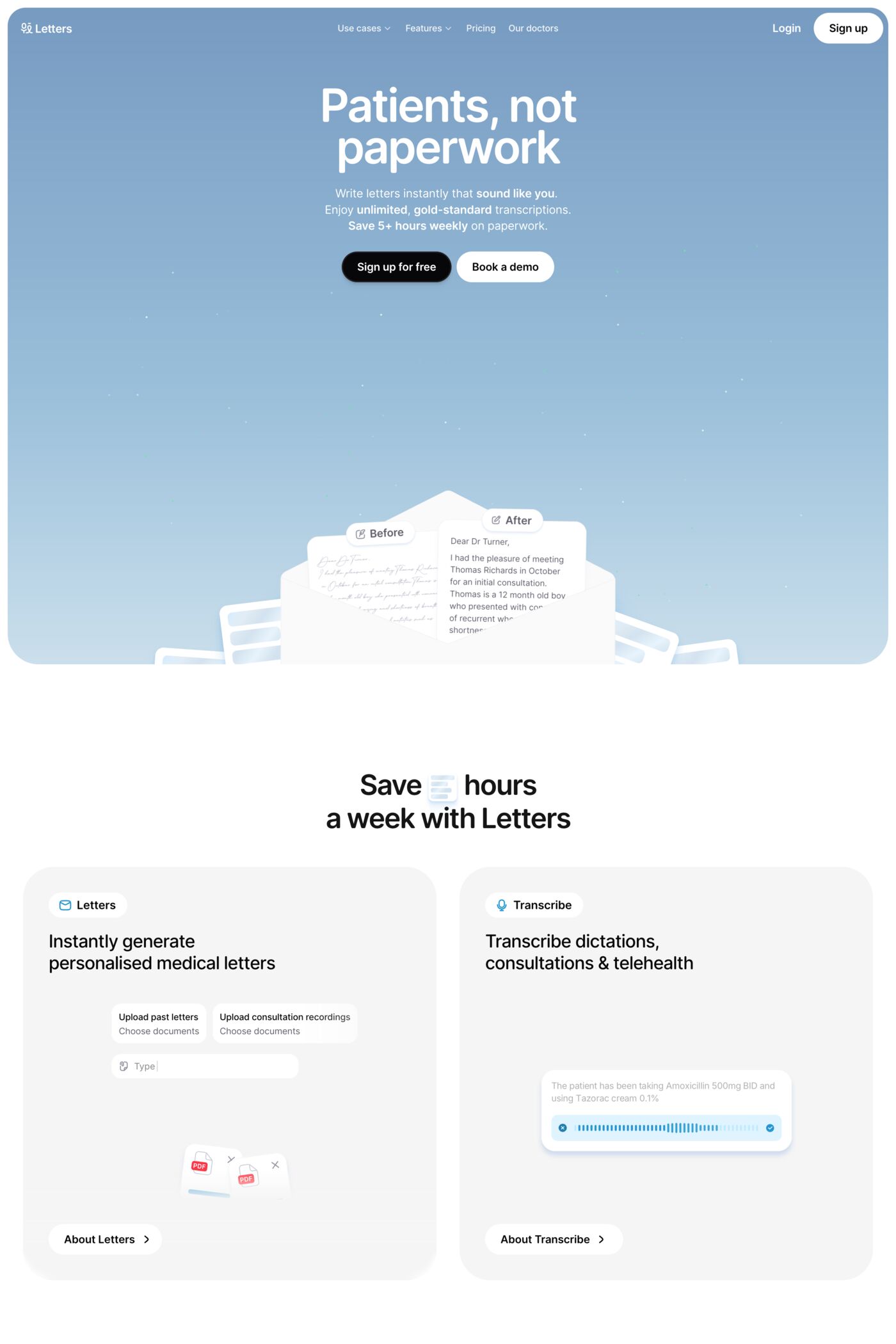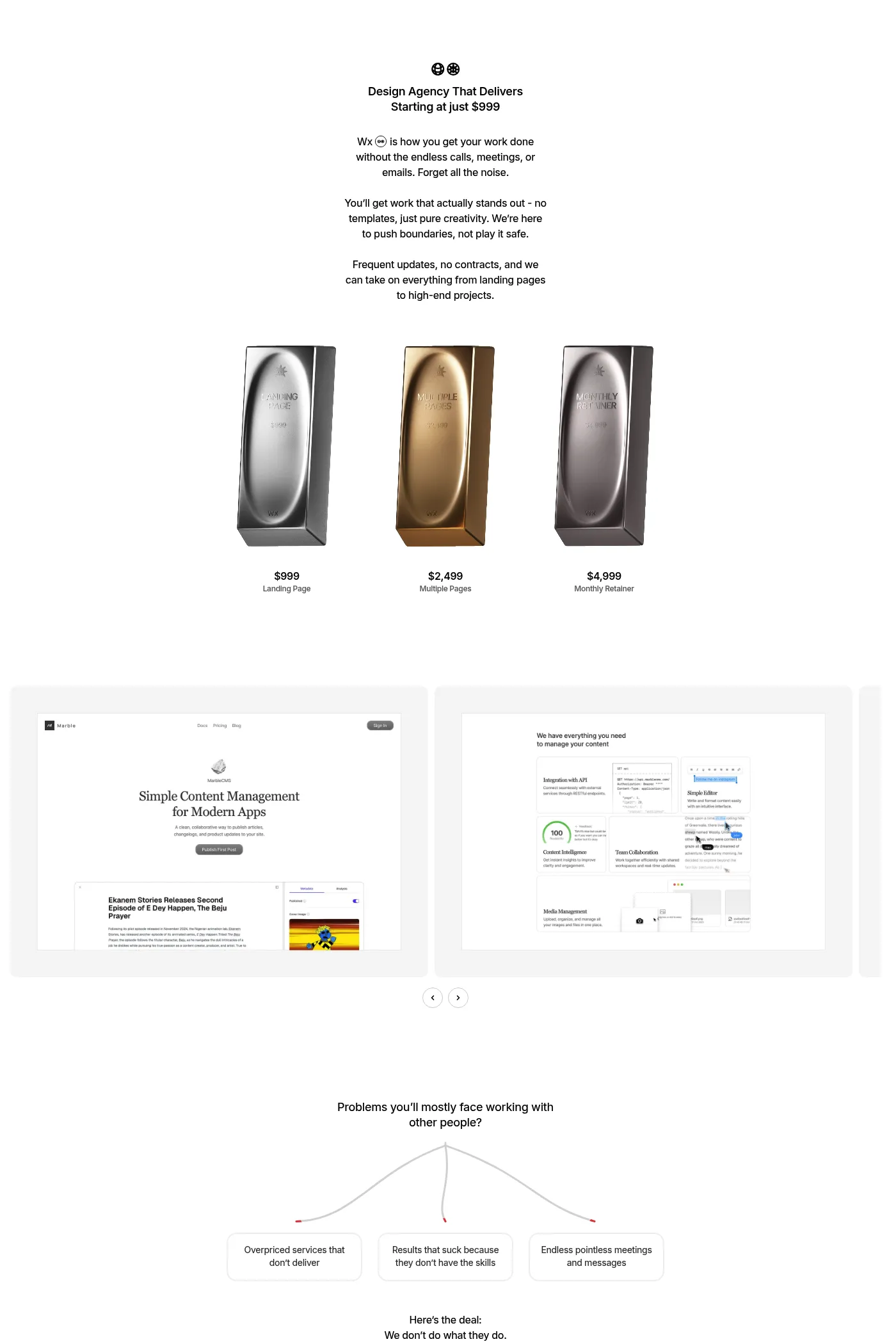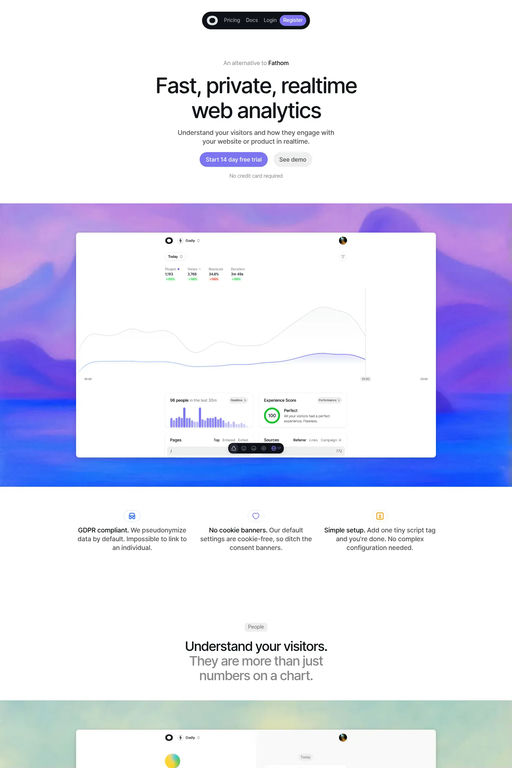
Open Runde is a rounded variant of the typeface Inter by Rasmus Andersson. Open Runde was originally created to be used in my app Superchat as an alternative to SF Pro Rounded.